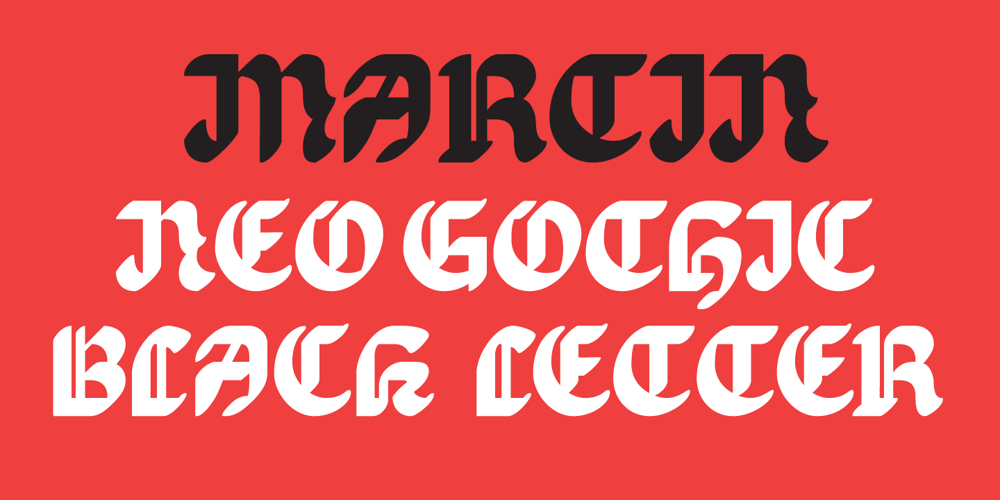
EB Martin Font Family was designed by Erik Jarl Bertell and published by Erik Bertell. EB Martin contains 1 styles and family package options. Martin is a quirky modern blackletter, inspired by several traditional styles. Despite the organic feel, its construction is entirely geometric.